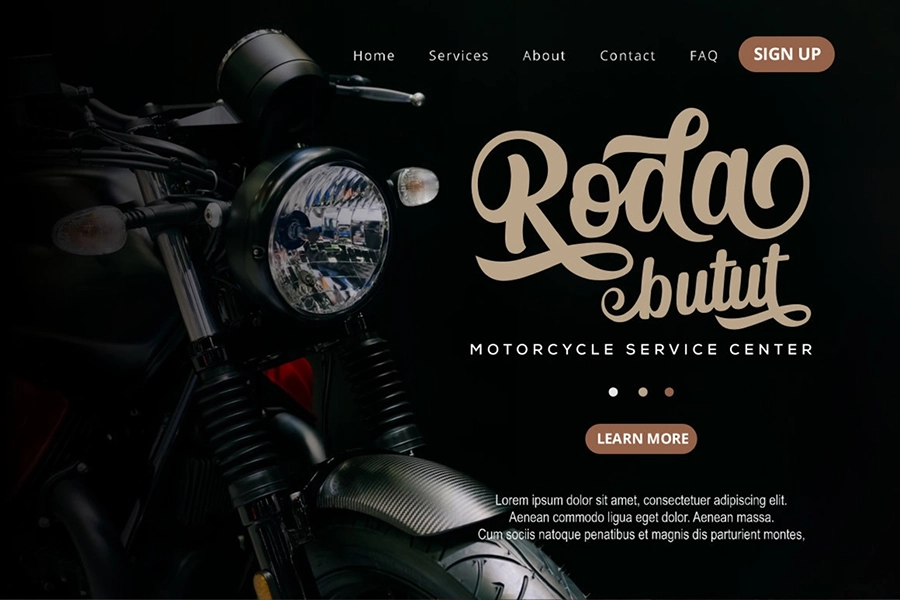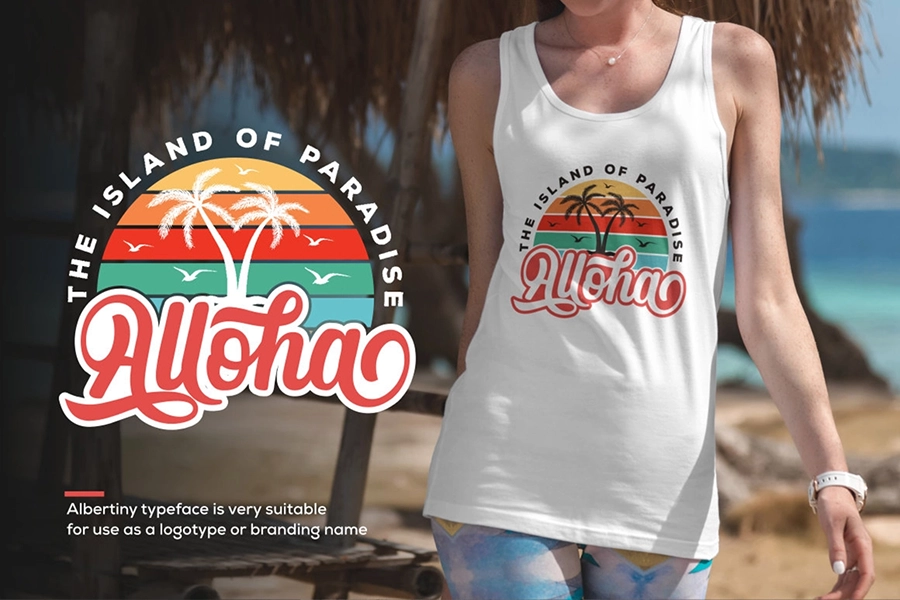
Albertiny – Awesome Script Typeface
Albertiny results out of a stunning pairing of a brush pen and pencil that makes it look incredibly endearing and authentic. Use this gorgeous and unique handwritten font to bring any DIY project to life!